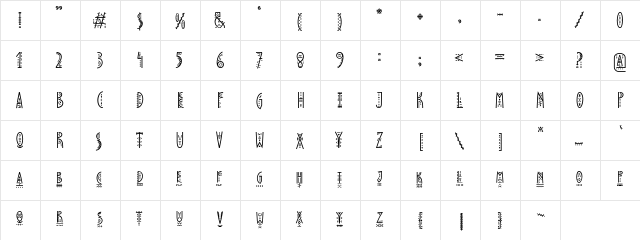
PapaKilo Decorative Light
Design Context for PapaKilo Decorative Typeface
PapaKilo Decorative is built around its visual character rather than neutral utility — its distinctive forms are designed to make an impression at display sizes. Its slender proportions lend an understated elegance to any composition.
Font Pairing: Pair with a clean neutral sans-serif for body copy to let PapaKilo Decorative's character lead without overwhelming the composition.
Pro Tip: Use PapaKilo Decorative exclusively at display sizes — it was designed to be seen, not read at length. Let a neutral companion handle body copy.